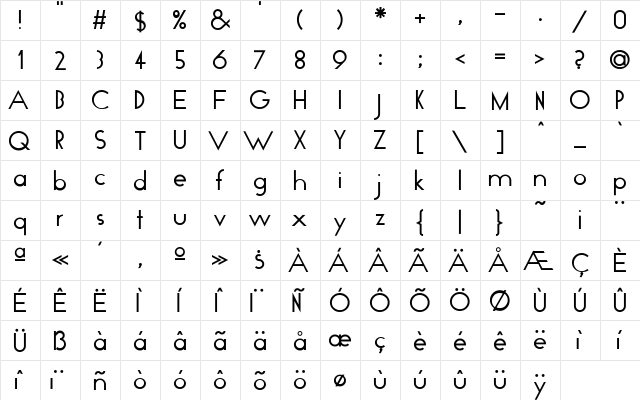
Plain Regular
Design Context for Plain Typeface
Plain takes a measured approach to typography — its balanced proportions and neutral character make it a reliable workhorse for both digital and print work.